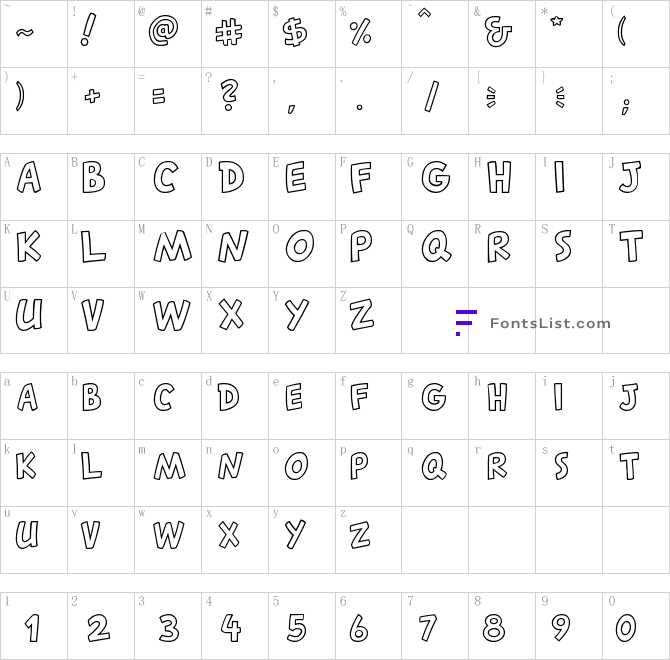
- Font Name:Canted FX
Canted-FX-Regular.ttf is a very beautiful artistic font, Canted-FX-Regular.ttf is widely used in the design and printing of various books and pictures,Canted-FX-Regular.ttf has a strong visual impact,Canted-FX-Regular.ttf is a commonly used font in newspapers, magazines and books, and is used in posters, e-commerce Poster design, store design, logo design, font design and other fields.Canted-FX-Regular.